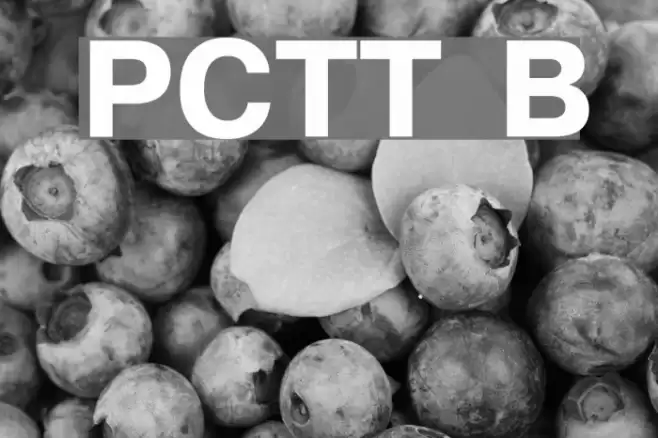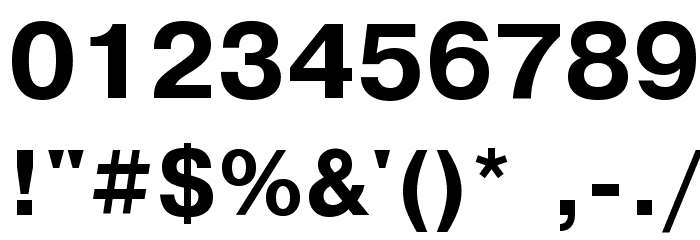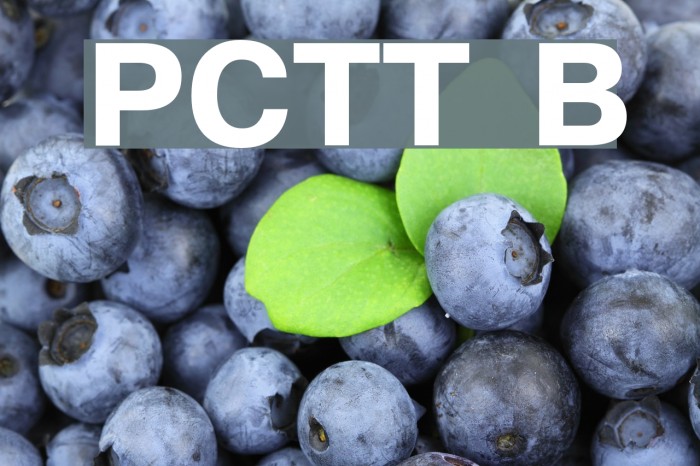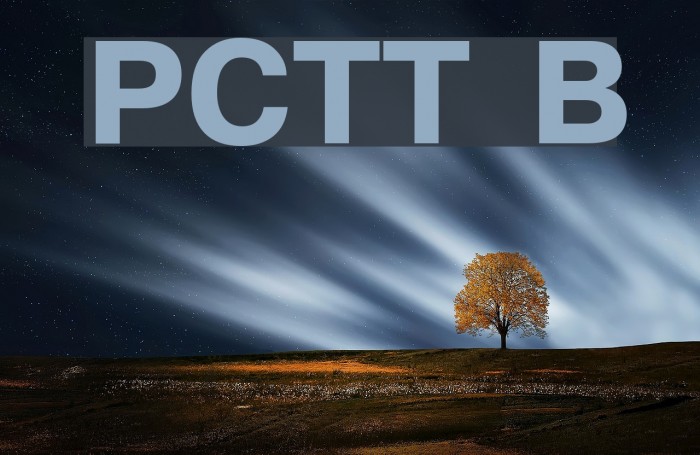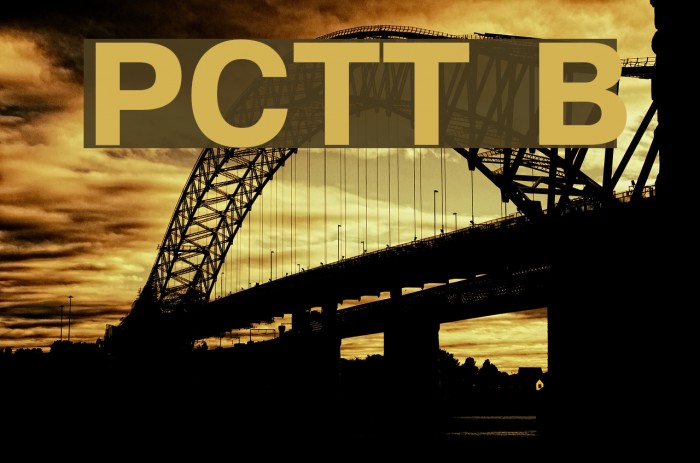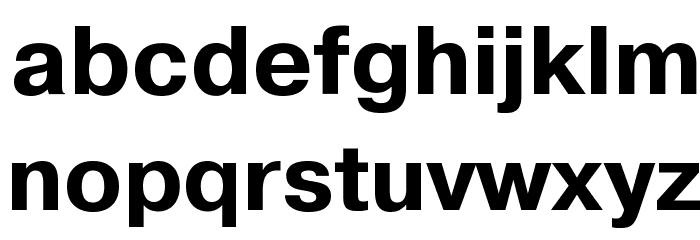
PragmaticaCTT Bold Font
PragmaticaCTT Bold Description
This font exhibits a bold and assertive style, characterized by its clean and straightforward sans-serif design. The letters are evenly weighted, providing a strong and uniform appearance across both uppercase and lowercase characters. The numbers and special characters maintain the same boldness, ensuring consistency throughout. The overall look is modern and professional, making it suitable for a variety of applications where clarity and impact are essential.
A bold, modern sans-serif font with a clean and uniform appearance from Uncategorized fonts.
- Proposed Projects: Ideal for headlines, advertising, branding, and any project requiring a strong visual impact.